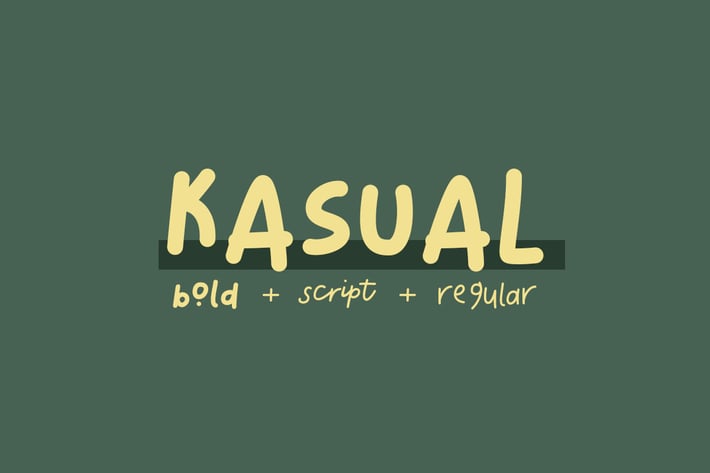
Kasual Font Family
Kasual is modern fun font, every single letters have been carefully crafted to make your text looks beautiful. With modern fun style this font will perfect for many different project ex: quotes, blog header, poster, wedding, branding, logo, fashion, apparel, letter, invitation, stationery, etc.